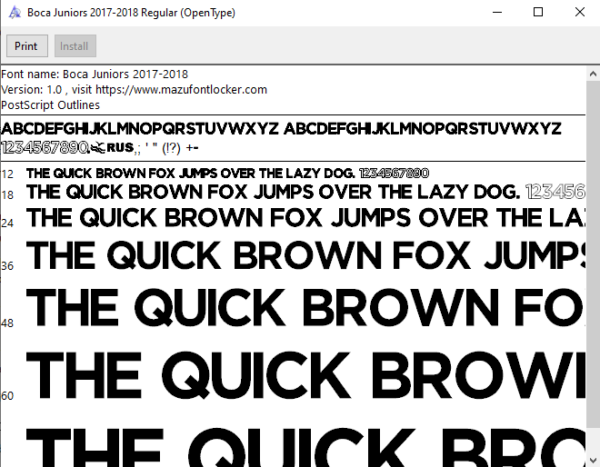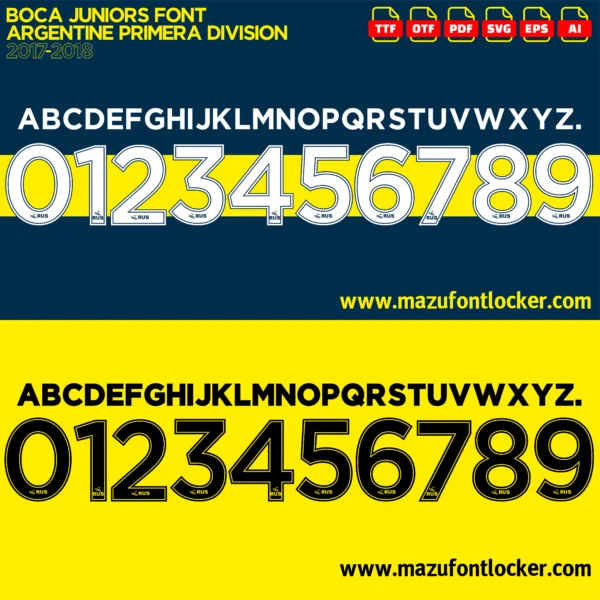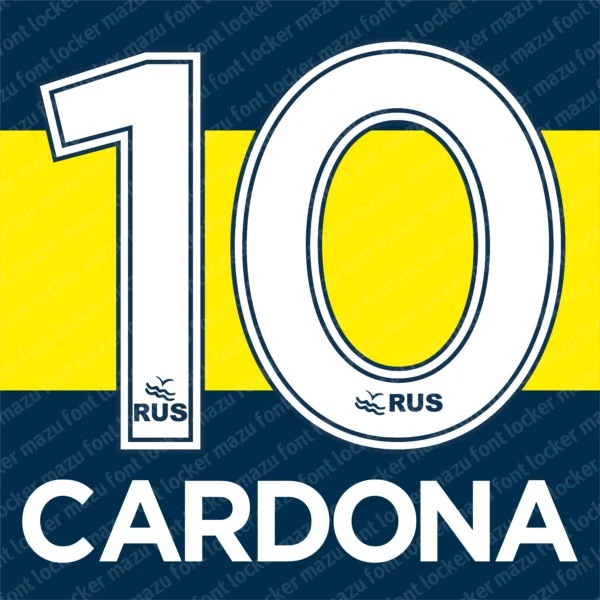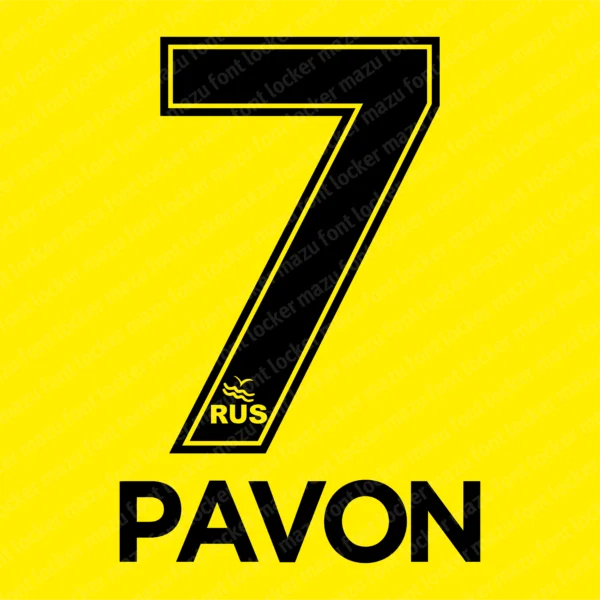
Boca Juniors 2017-2018 Font Vector – Legendary Azul y Oro Glory
This font captures the bold, fearless, electric, and ultra-premium lettering that perfectly embodies Boca Juniors’ iconic Argentine passion fused with the ruthless, fiery, and unstoppable spirit of the Xeneizes — delivering unmatched intensity, raw emotion, elite craftsmanship, and pure Blue-Gold fire for premium jersey mockups, epic football designs, spectacular sports visuals, standout fan creations, and professional branding projects.
Boca Juniors 2017-2018 Font Vector – Authentic Xeneizes Typeface
The Boca Juniors 2017-2018 Font Vector is a premium typeface that accurately recreates the official match lettering worn by Boca Juniors during their dominant 2017-2018 season. This high-quality vector font kit captures the bold, passionate, and distinctive typography that reflects the pride, fighting spirit, and rich football heritage of the Xeneizes.
Designed for professional designers and passionate Boca Juniors supporters, the Boca Juniors 2017-2018 Font Vector delivers perfect authenticity for creating realistic jersey mockups, fan merchandise, matchday posters, social media graphics, and classic football content. It pairs beautifully with Boca Juniors’ legendary blue and yellow kits featuring the iconic club crest.
Why Choose Boca Juniors 2017-2018 Font Vector
This font stands out because of its sharp vector precision and strong club identity. Every letter and number is crafted to match the exact style used on the players’ shirts during the memorable 2017-2018 campaign. Whether you are creating professional kit templates or celebrating Boca Juniors’ golden era, the Boca Juniors 2017-2018 Font Vector delivers an authentic match-ready appearance.
The letterforms in the Boca Juniors 2017-2018 Font Vector are bold, clean, and highly readable. The characters feature balanced proportions and sharp detailing that create a professional appearance on both home and away jerseys while maintaining the classic yet passionate football aesthetic of the 2017-2018 era.
The numerals feature strong geometric construction with excellent visibility and balance. Every number is carefully vectorized to ensure flawless scaling across digital graphics, print projects, and jersey applications.
• Full uppercase A–Z and numbers 0–9 in authentic Boca Juniors 2017-2018 style
• Create highly realistic Boca Juniors 2017-2018 jersey mockups with authentic lettering
• Design professional squad announcements, posters, and match graphics
• Produce custom Boca Juniors-themed merchandise and fan artwork
• Includes authentic styling inspired by official 2017-2018 season match shirts
The Boca Juniors 2017-2018 Font Vector is an independently designed typeface package. It is carefully crafted to replicate the official shirt lettering style used during the 2017-2018 season. This font kit is ideal for football-themed creative projects, fan artwork, jersey concepts, and professional sports graphics.